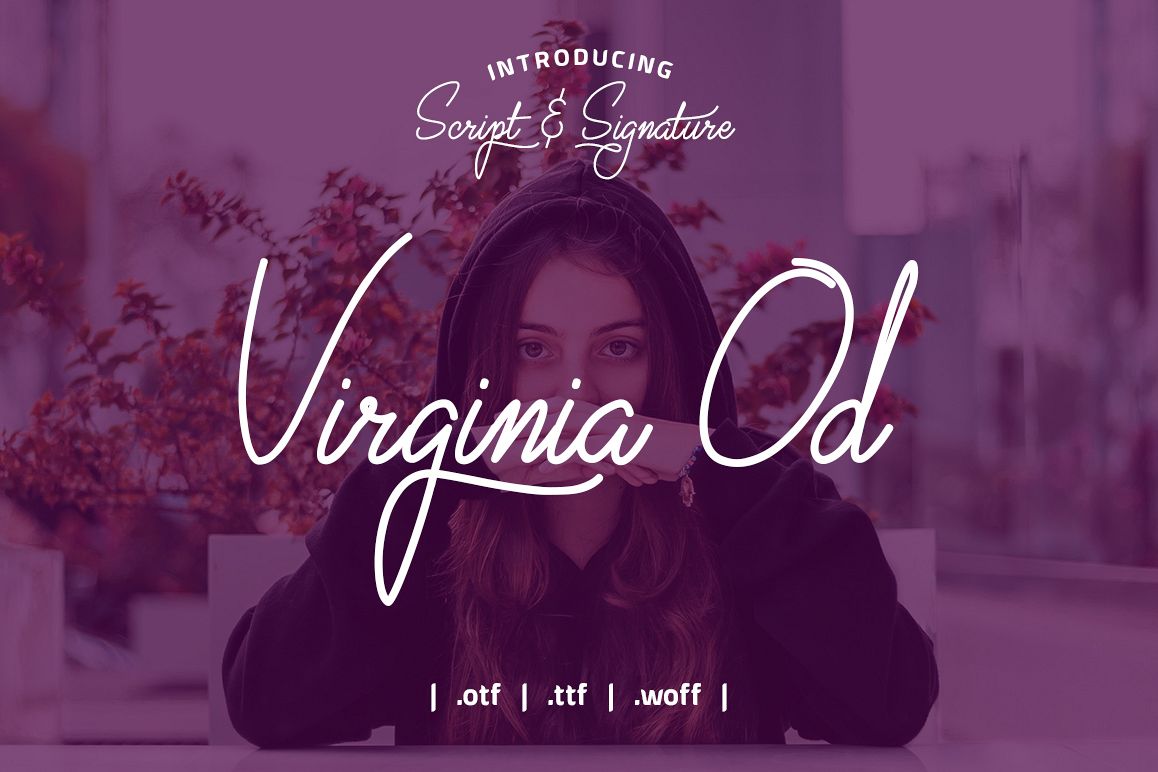
Virginia Od Script Font
VirginiaODScript
Virginia Od Script is a stylish calligraphy font that features a varying baseline, smooth line, classic and interesting touch. Can be used for various purposes. such as headings, signature, logos, posters, t-shirt, signage, lable, wedding invitation, badges etc.